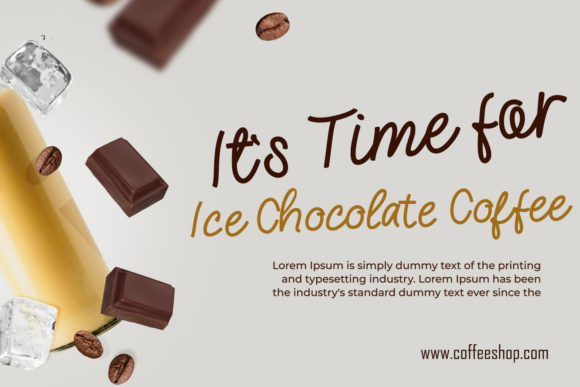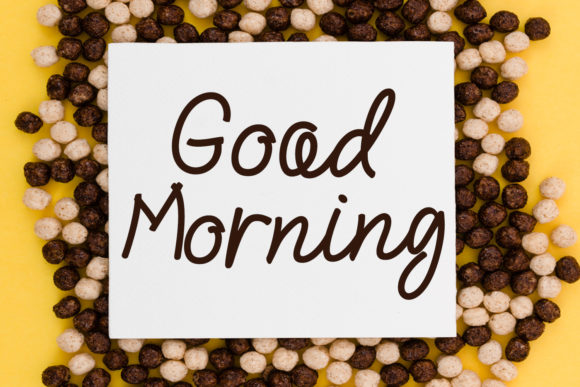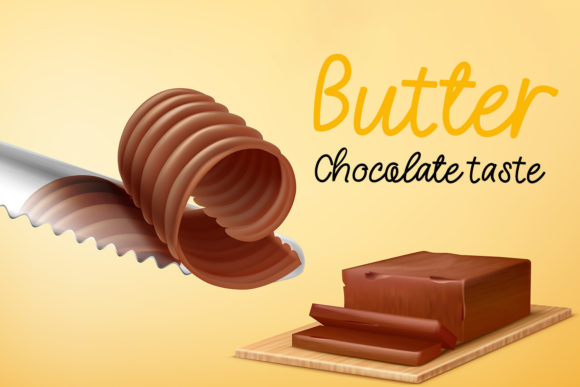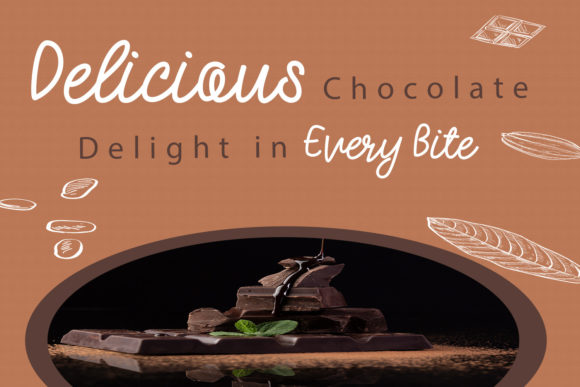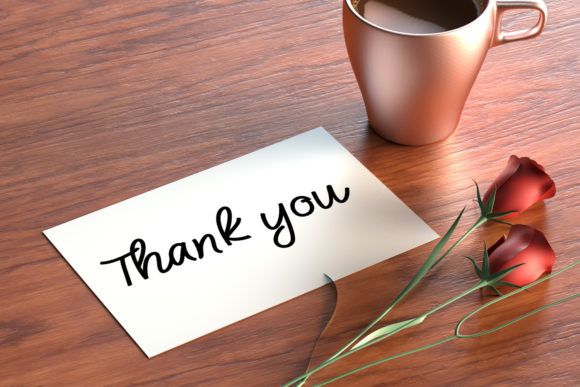
Socolate Font
About Socolate Font
Socolate is a simple and cursive script font. It features a vintage style and it is incredibly fit for a wide range of creations that require a delicate touch. This font is PUA encoded which means you can access all of the glyphs and swashes with ease!